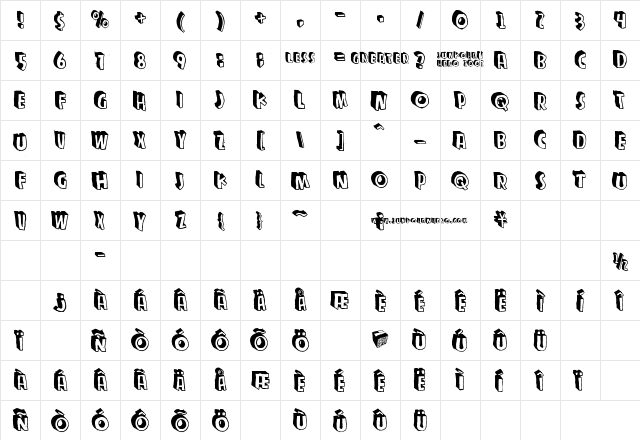
Complete Zupagargonizer T Regular glyph index. Displaying only characters natively supported by Zupagargonizer T Regular font.
Zupagargonizer T is a composed and adaptable typeface that performs quietly and consistently across a wide range of design contexts.